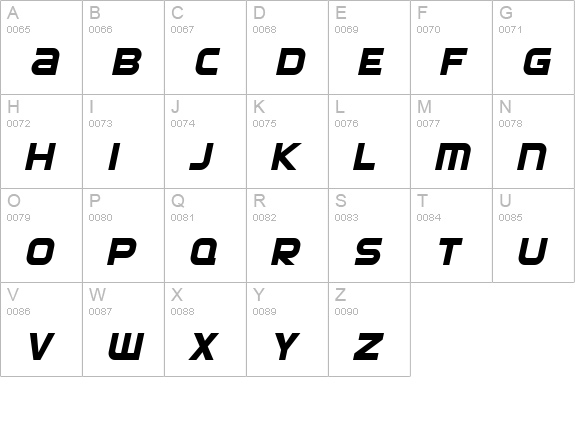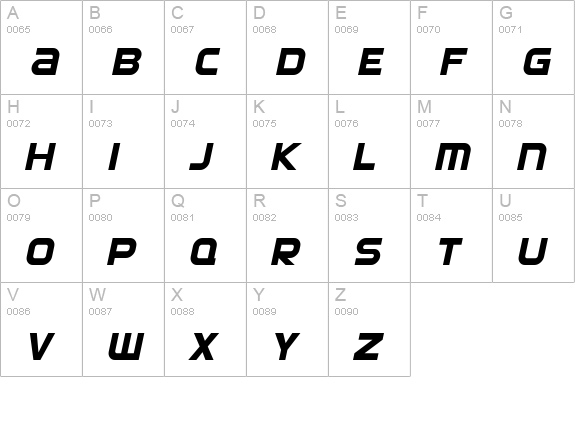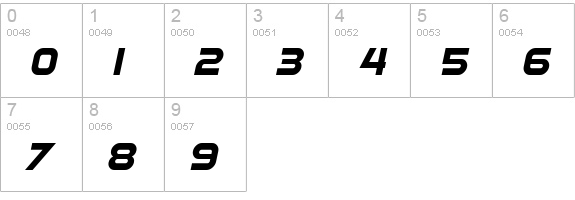
SF Automaton Oblique Font Details
SF Automaton Oblique is a distinctive, italic variant in the SF typeface family \xE2\x80\x94 well suited to design and typography projects.
SF Automaton Oblique is a striking and futuristic font that effortlessly combines sleek lines and bold angles to create a visually captivating typeface. With its unique oblique design, this font exudes a sense of dynamism and modernity, making it perfect for a wide range of applications. The letters of SF Automaton Oblique are carefully crafted, showcasing a perfect balance between sharp edges and smooth curves. Each character has a distinct presence, ensuring clarity and readability in both small and large sizes. Whether used for headlines, titles, or body text, this font commands attention and adds a touch of sophistication to any design project. What sets SF Automaton Oblique apart is not only its impeccable design, but also its availability as a free font. It can be freely downloaded at FontsMarket.com, allowing designers, creatives, and enthusiasts to access this exceptional typeface without any cost. This accessibility makes SF Automaton Oblique an invaluable resource for anyone seeking to elevate their designs with a cutting-edge font. Whether you're working on a digital interface, branding materials, advertisements, or any other design project, SF Automaton Oblique will undoubtedly make a lasting impression. Its sleek and futuristic aesthetic, combined with its availability as a free download, ensures that this font is a must-have for any design arsenal. Embrace the future of typography with SF Automaton Oblique and let your creativity soar.